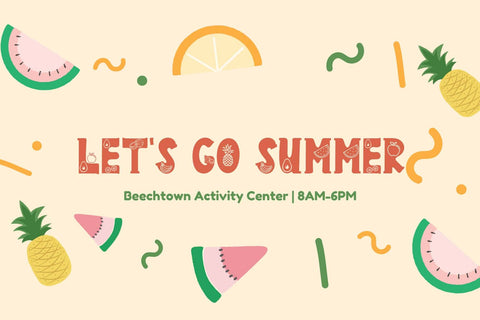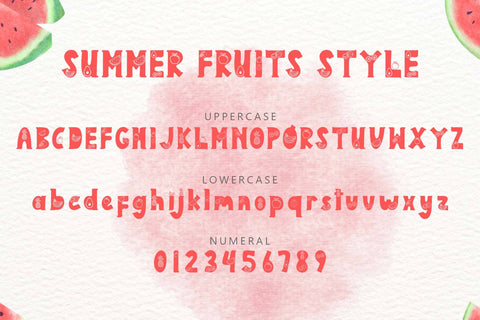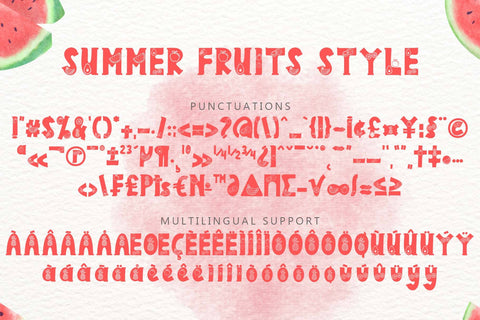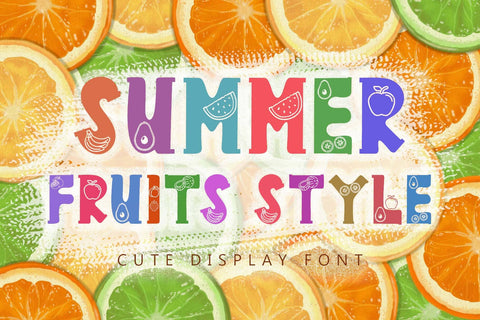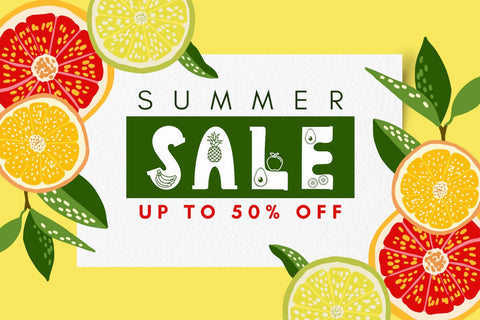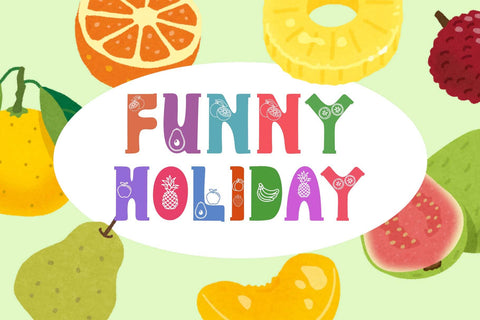
Summer Fruits Style
"Summer Fruits Style" is a unique and elegant display font. It comes with uppercase, lowercase, numbers, punctuation, and multilingual support. It is perfect for use in summer, spring, vacation, camping, banners, posters, prints, book covers, coloring books, etc.